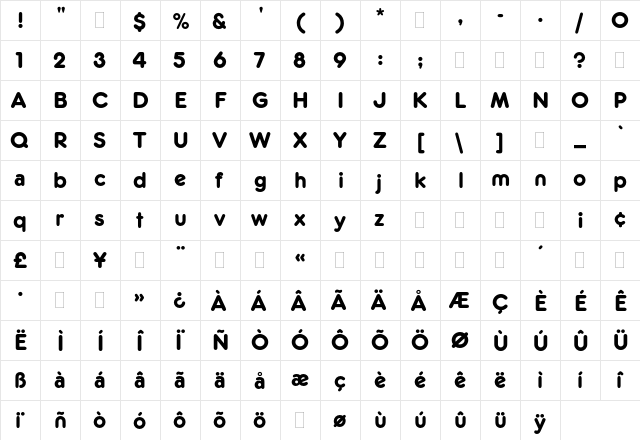
Frankfurter Medium Plain
Design Context for Frankfurter Medium Typeface
Frankfurter Medium is a composed and adaptable typeface that performs quietly and consistently across a wide range of design contexts.